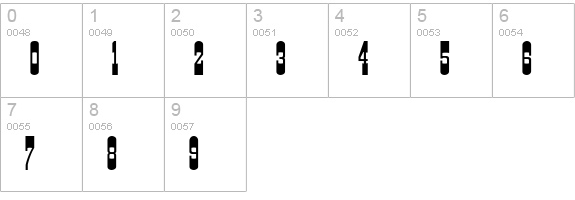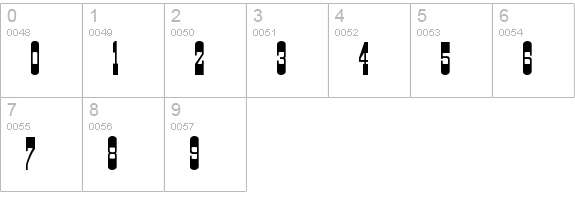
Oldwestern Font Details
Introducing the Oldwestern font - a charming and rustic typeface that exudes the essence of the Wild West. With its vintage-inspired design and rugged appearance, this font perfectly captures the spirit of the old frontier days. Each letter is meticulously crafted to evoke a sense of nostalgia and adventure, making it ideal for projects that require a touch of classic Americana. Best of all, Oldwestern font is completely free to download at FontsMarket.com. Whether you're working on a poster, logo, or any other creative project, this font will add a unique and authentic feel to your designs. Embrace the rugged beauty of the Old West with Oldwestern font - your go-to typeface for all things vintage and western. Download it now and start creating stunning designs that stand the test of time.